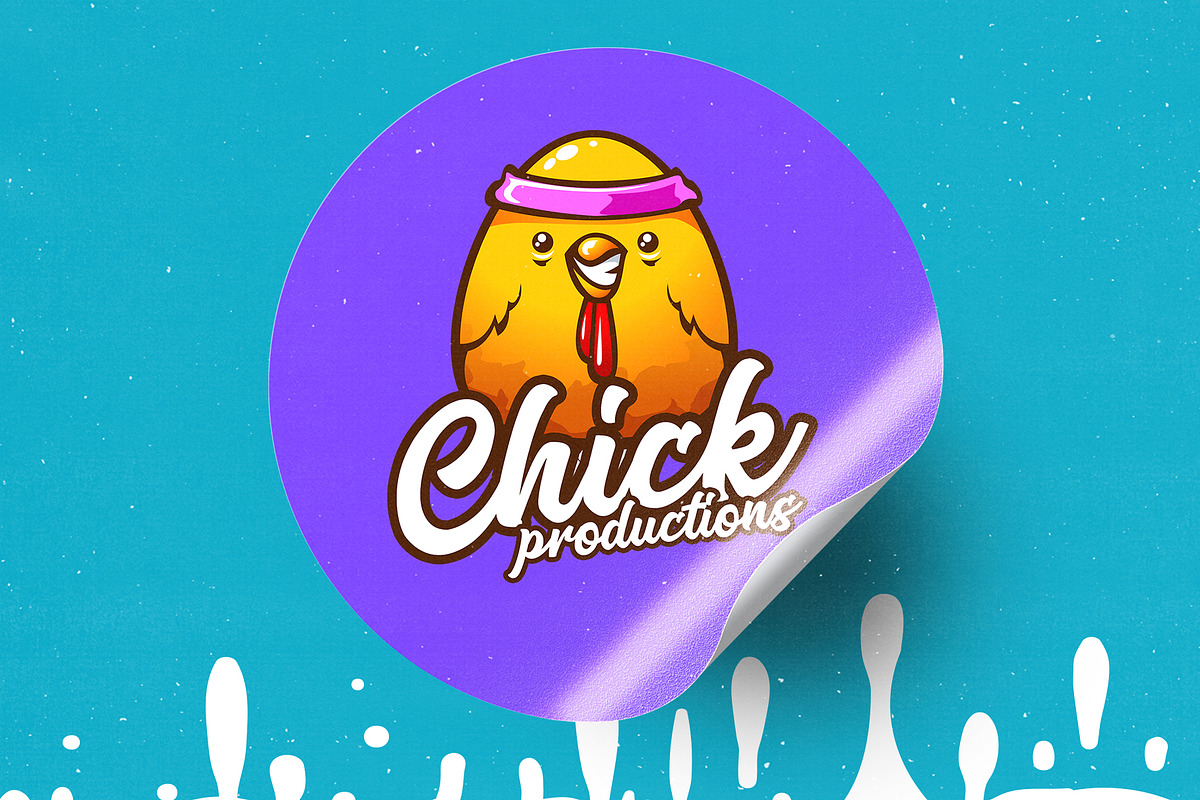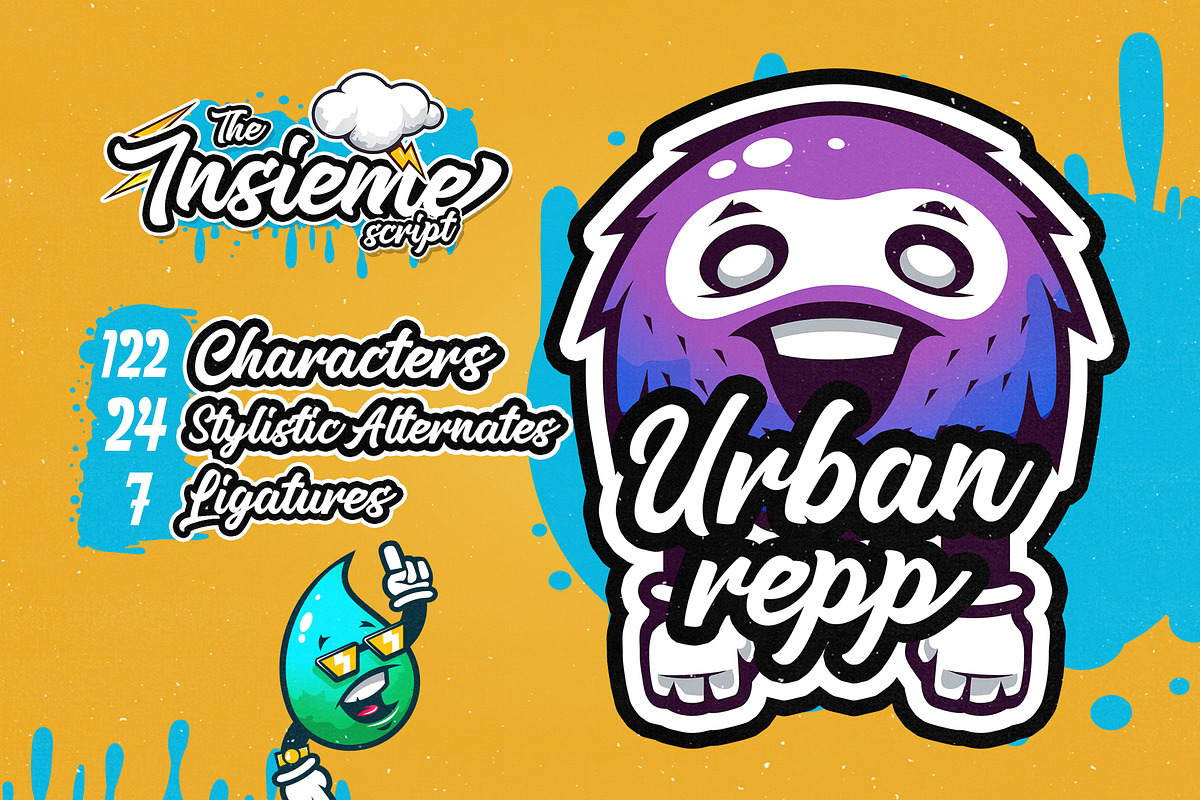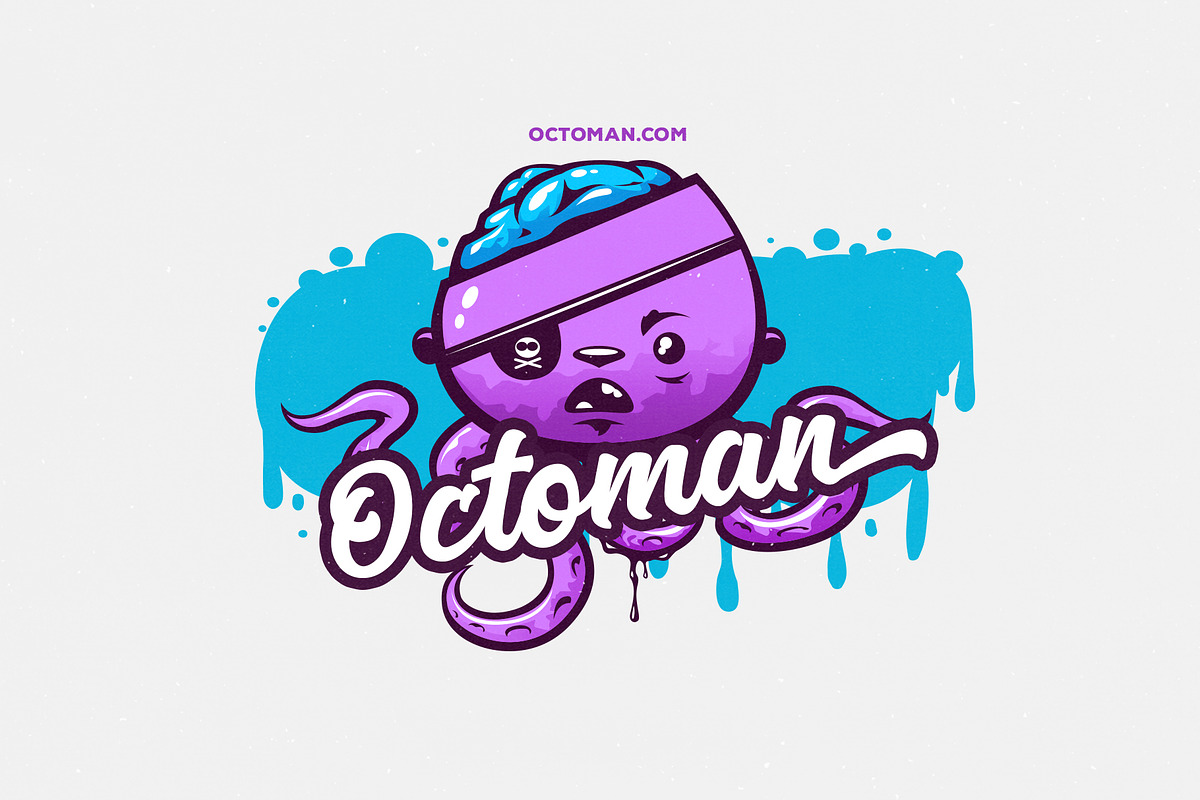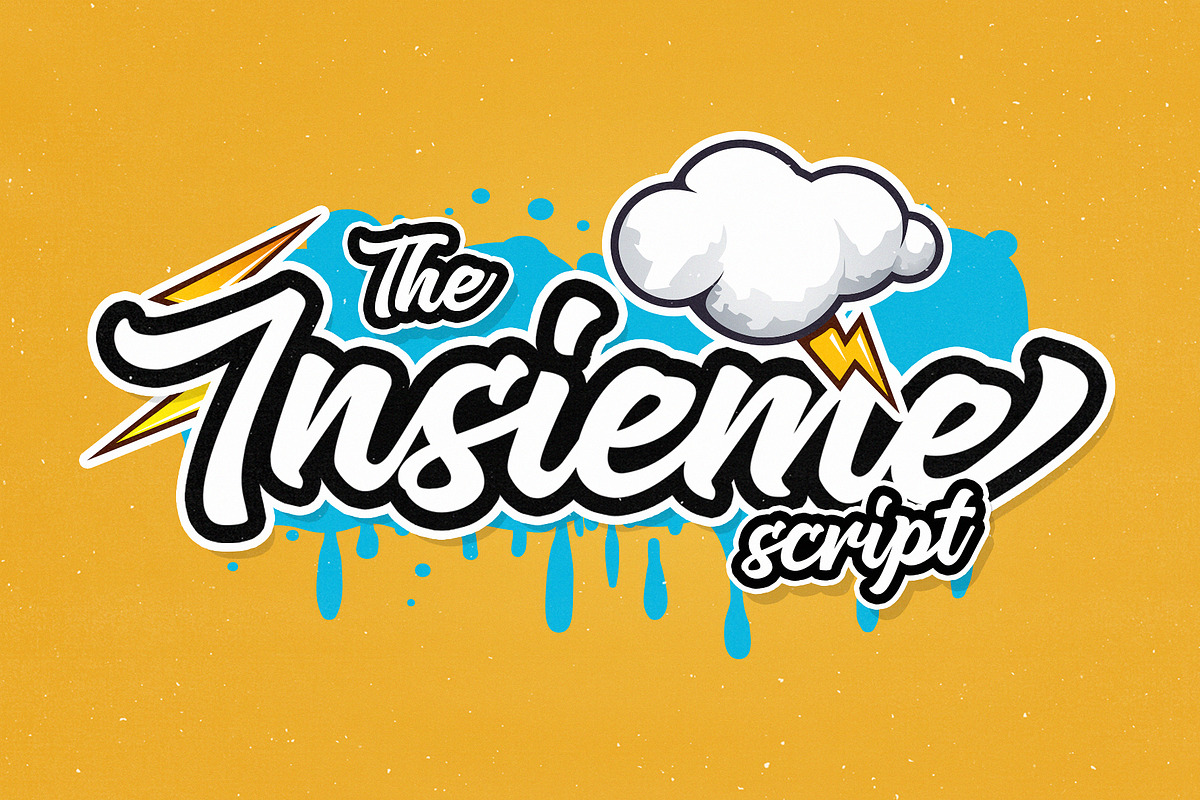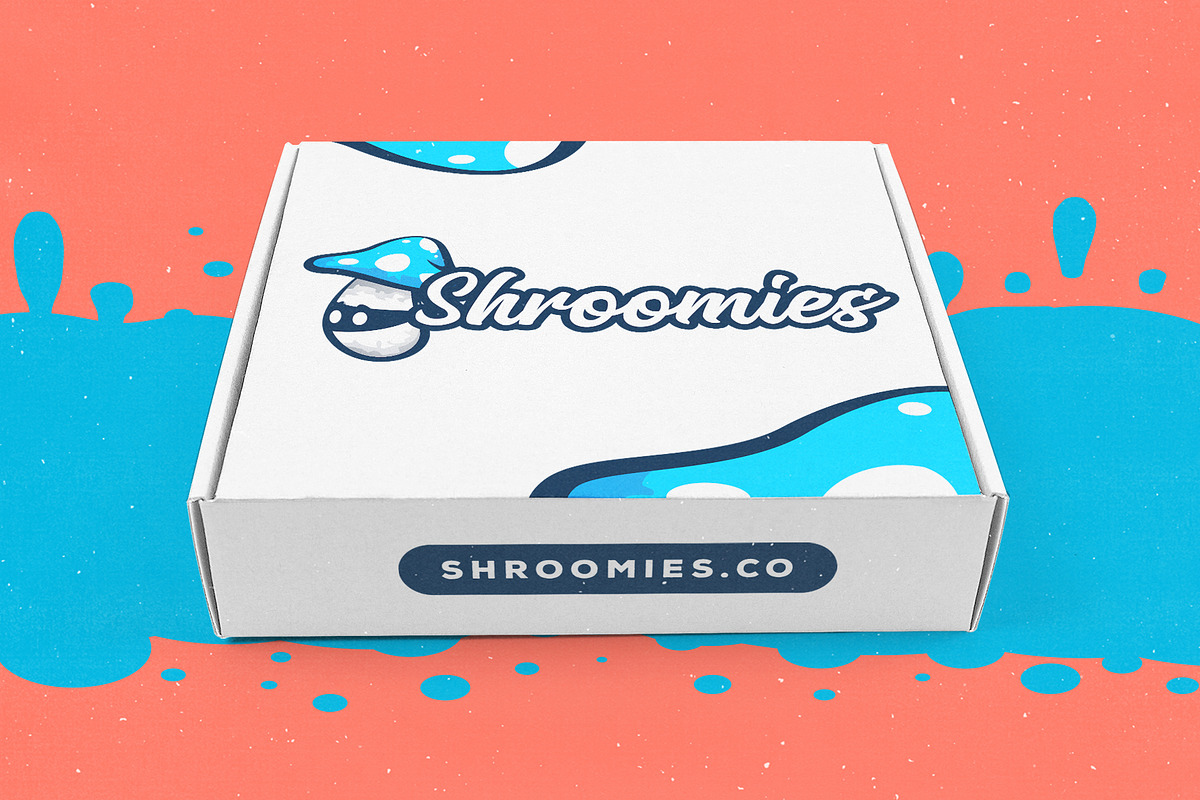
Insieme Script Font
Introducing Insieme, our Beautifully Handcrafted Script Font
Insieme, meaning "together" in Italian, lends itself to the style of this Typeface, with the lines flowing smoothly together culminating in a crisp script typeface that would be perfectly suited for logos, branding, product design and so much more.
There are 122 Characters in Total, with 24 Stylistic Alternates to choose from, and 7 perfectly crafted ligatures.
Insieme Script Font by Layerform Design Co. fits naturally into Branding, posters, packaging, typography.